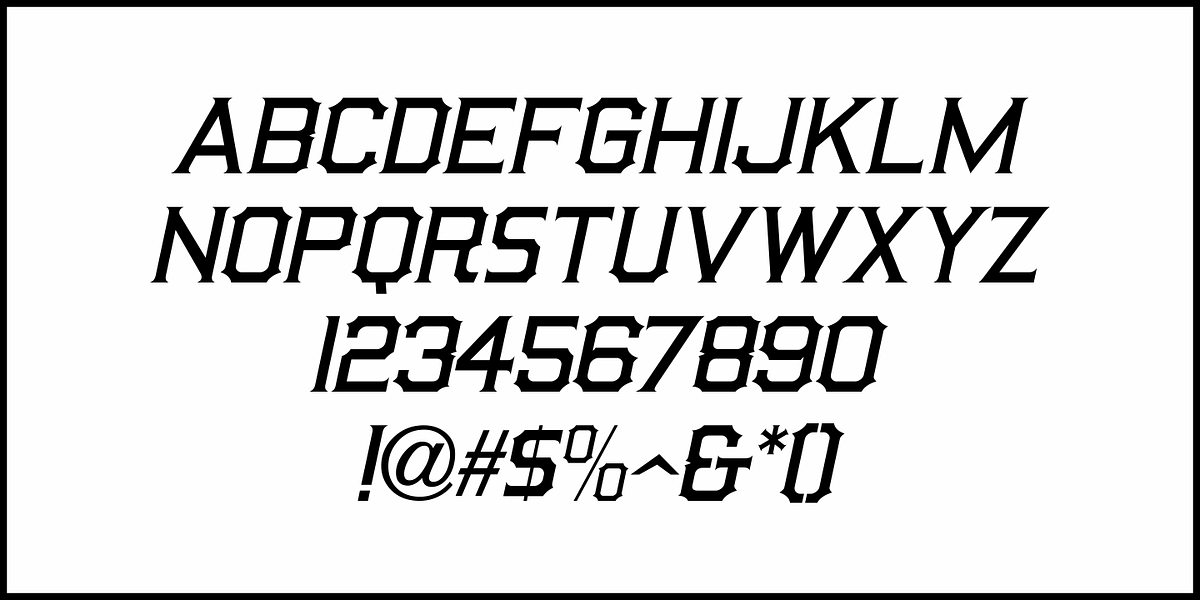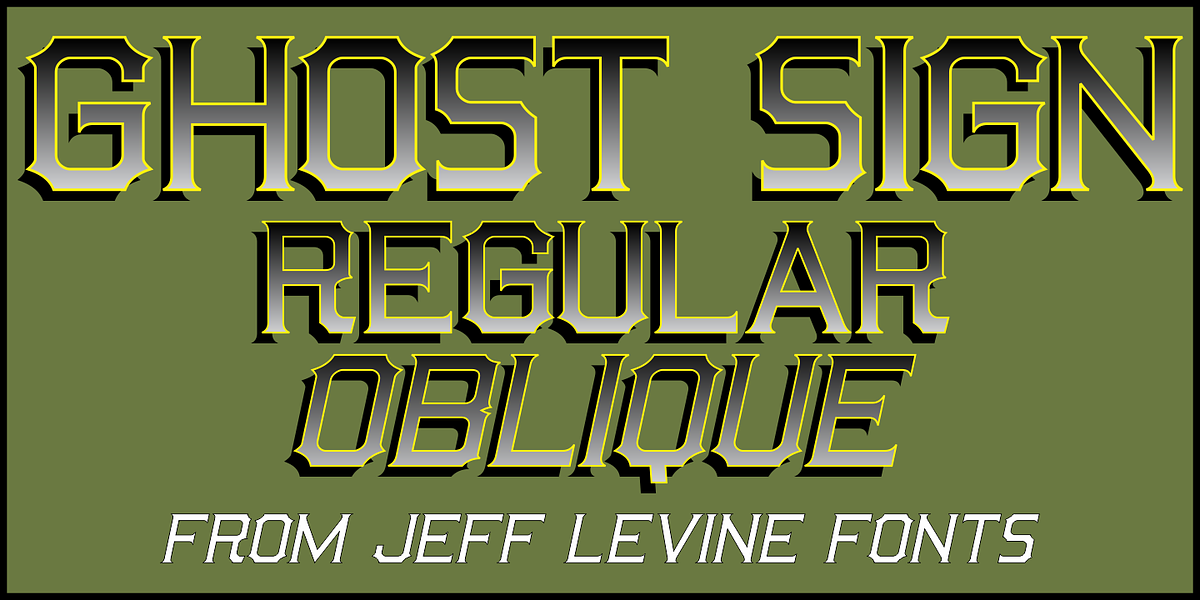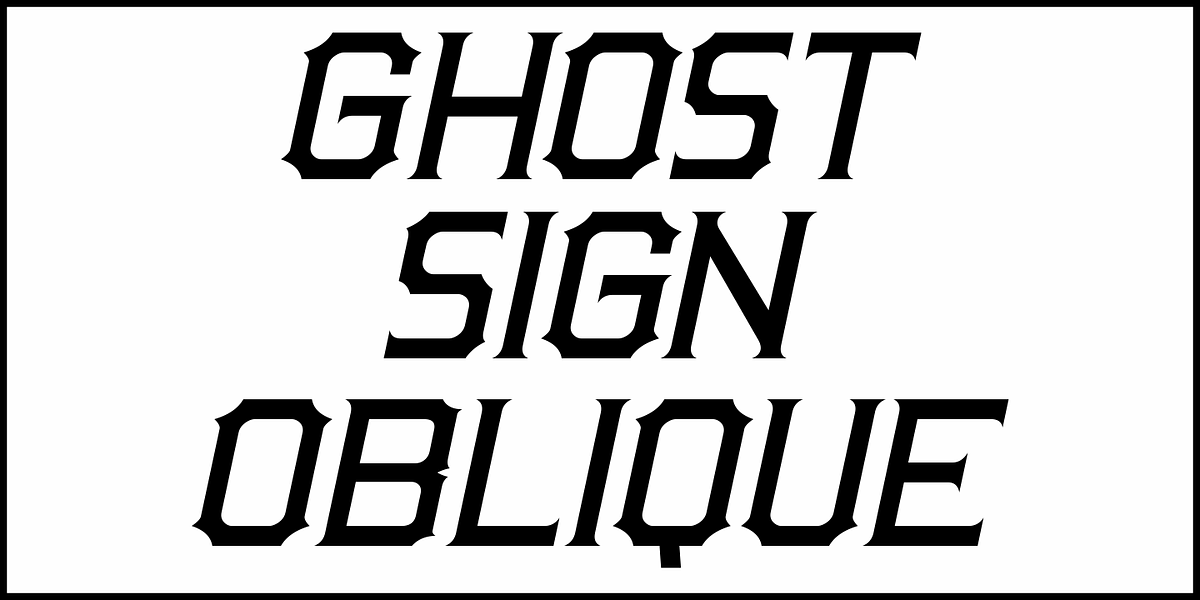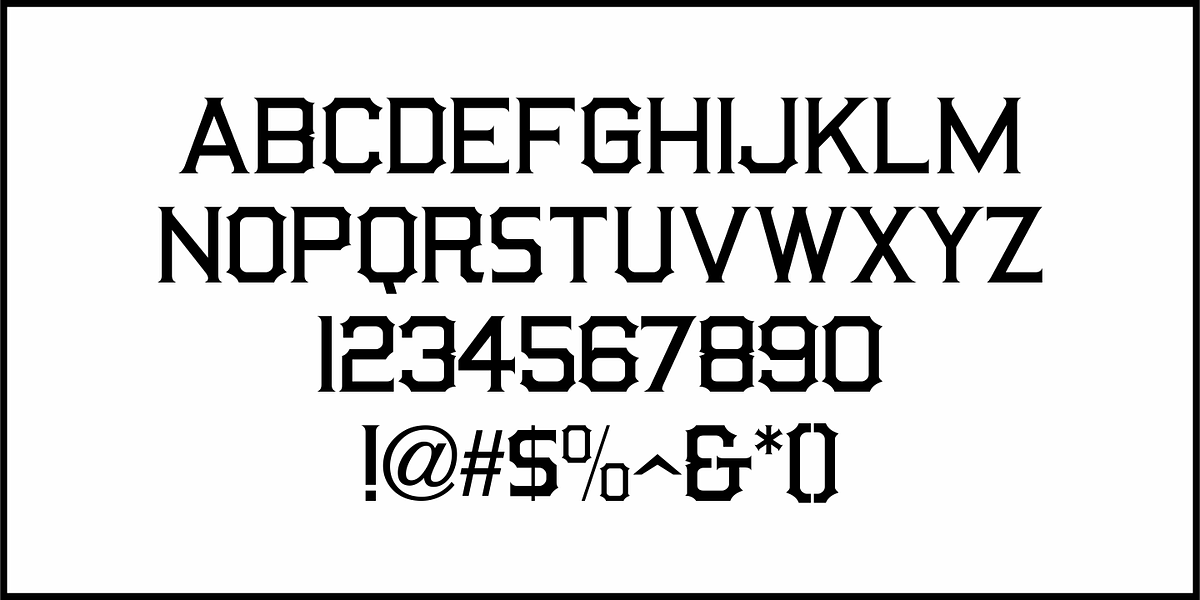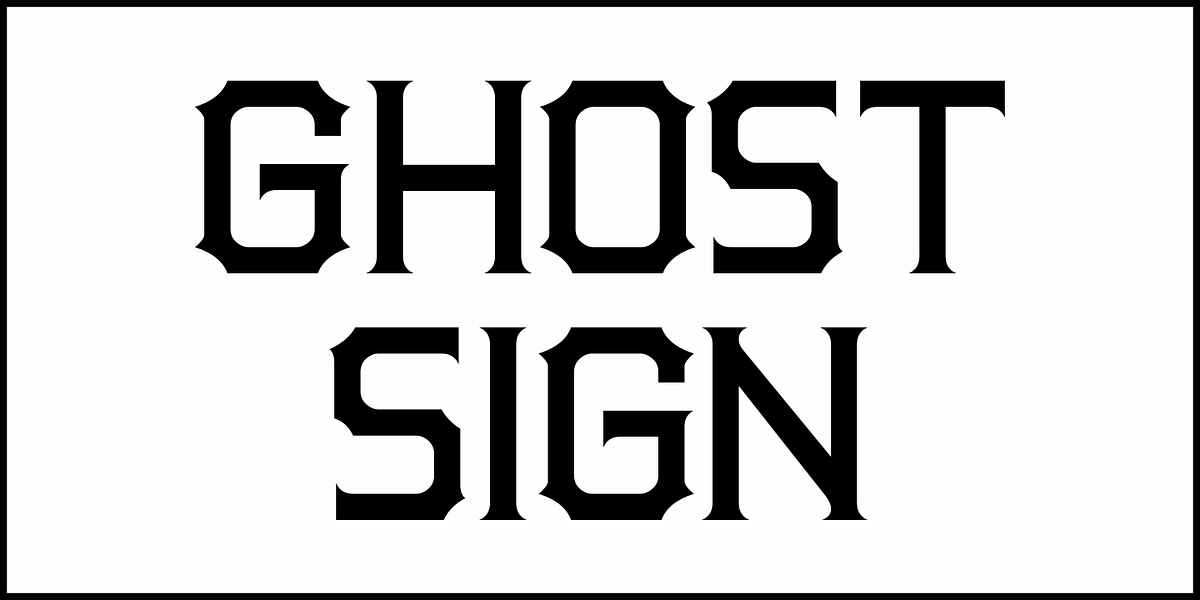
Ghost Sign JNL
Ghost Sign JNL is a spurred serif type design based on the faded lettering of an antique brick wall sign for Homer Hardware [located in Homer, NY] and is available in both regular and oblique versions.
From Wikipedia:
“A ghost sign is an old hand-painted advertising sign that has been preserved on a building for an extended period of time. The sign may be kept for its nostalgic appeal, or simply indifference by the owner.
Ghost signs are found across the world with the United States, the United Kingdom, France and Canada having many surviving examples. Ghost signs are also called fading ads or brickads. In many cases these are advertisements painted on brick that remained over time. Old painted advertisements are occasionally discovered upon demolition of later-built adjoining structures. Throughout rural areas, old barn advertisements continue to promote defunct brands and quaint roadside attractions.
Many ghost signs from the 1890s to 1960s are still visible. Such signs were most commonly used in the decades before the Great Depression.
Ghost signs were originally painted with oil-based house paints. The paint that has survived the test of time most likely contains lead, which keeps it strongly adhered to the masonry surface. Ghost signs were often preserved through repainting the entire sign since the colors often fade over time. When ownership changed, a new sign would be painted over the old one.”